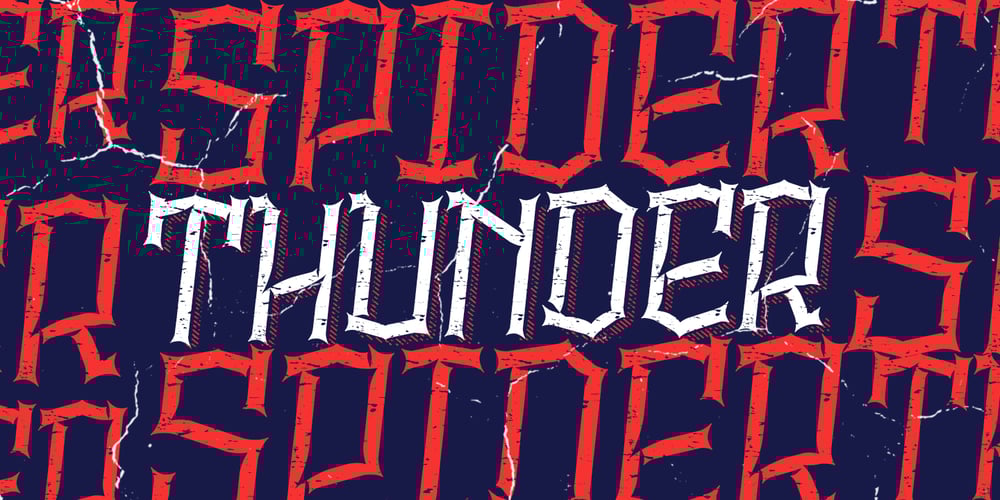
Alquitran Rust Font Family was designed by Andrey Kudryavtsev, Rodrigo Araya Salas, Francisco Páez and published by RodrigoTypo. Alquitran Rust contains 6 styles and family package options. Alquitran Rust is a dirty version of Alquitran Pro thought of extreme sports, magazines, covers etc .. Alquitran Rust contains alternatives and Cyrillic.